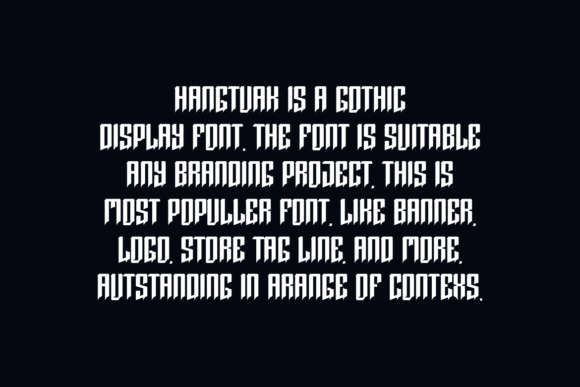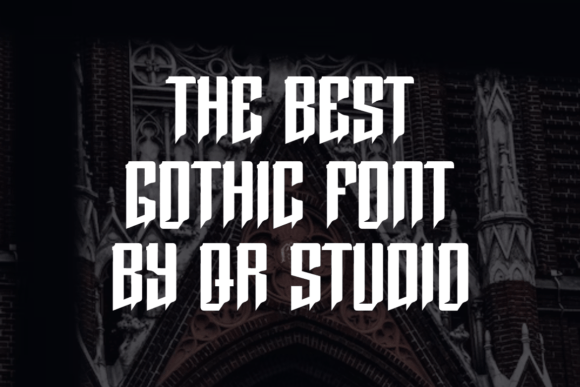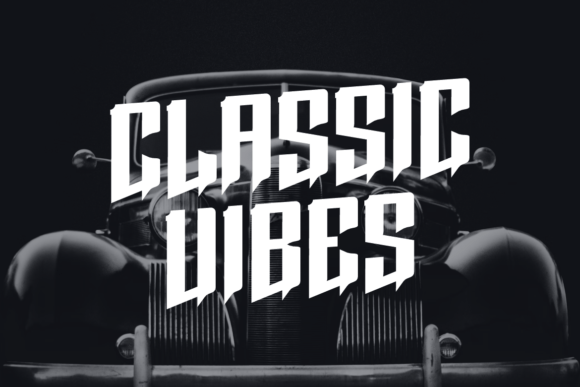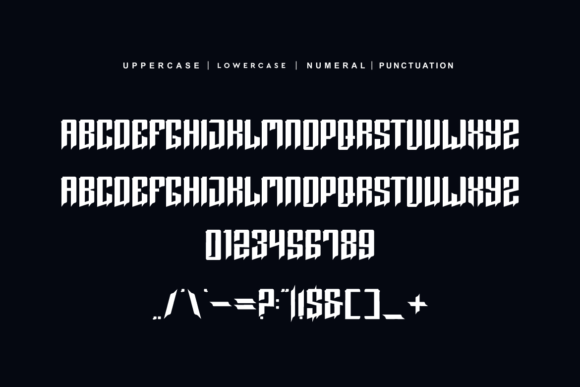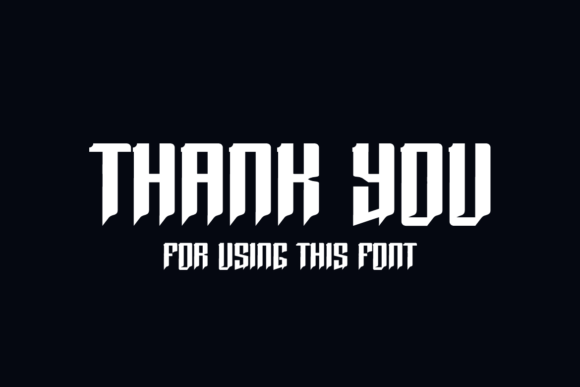
Introduction to Hangtuak Font
Hangtuak Font is a bold and authentic display font.
The font is suitable for any branding project like logo, sport, and many more Outstanding in a wide range of contexts.
Key Features of Hangtuak Font
Why Choose Hangtuak Font?